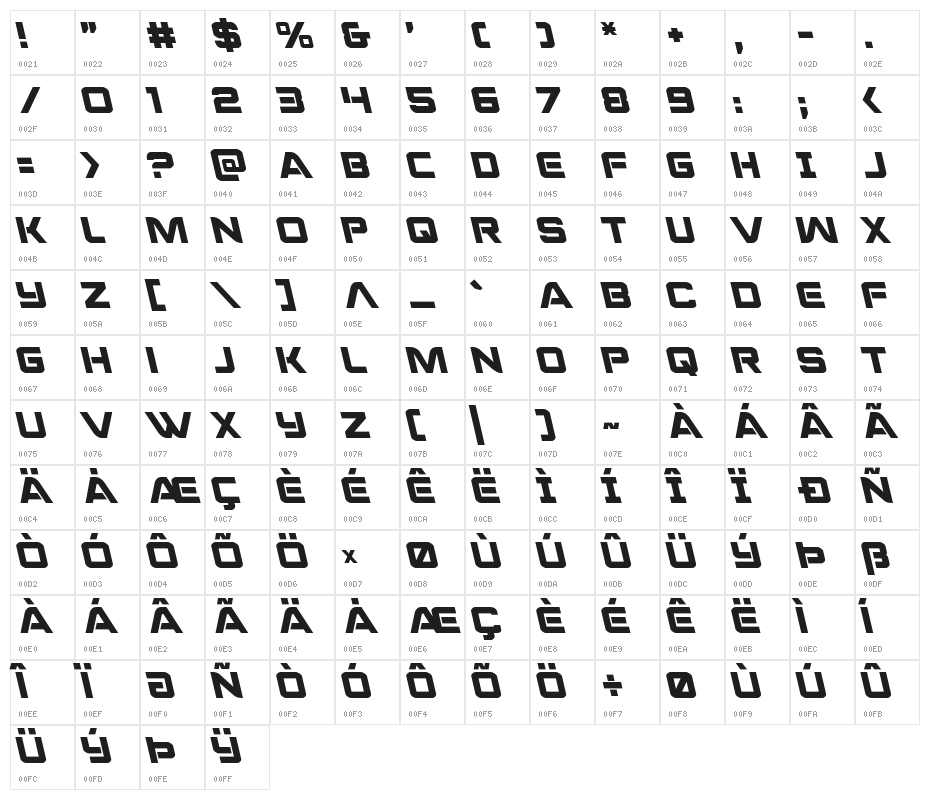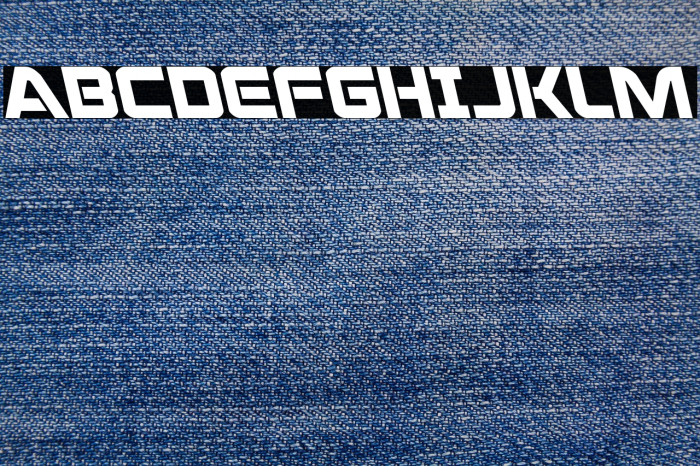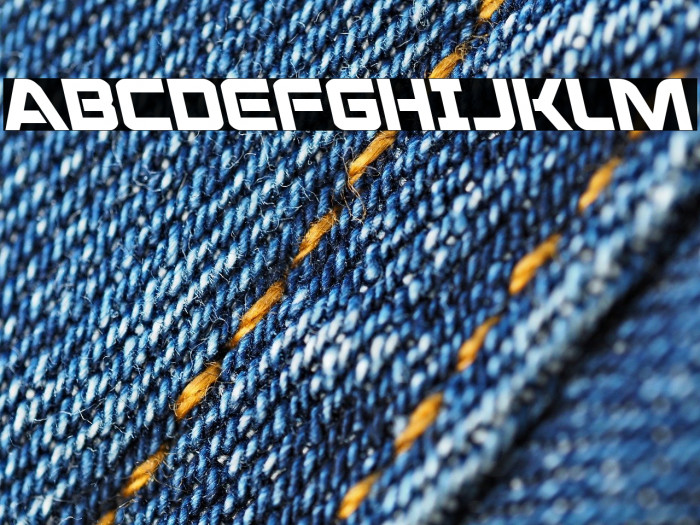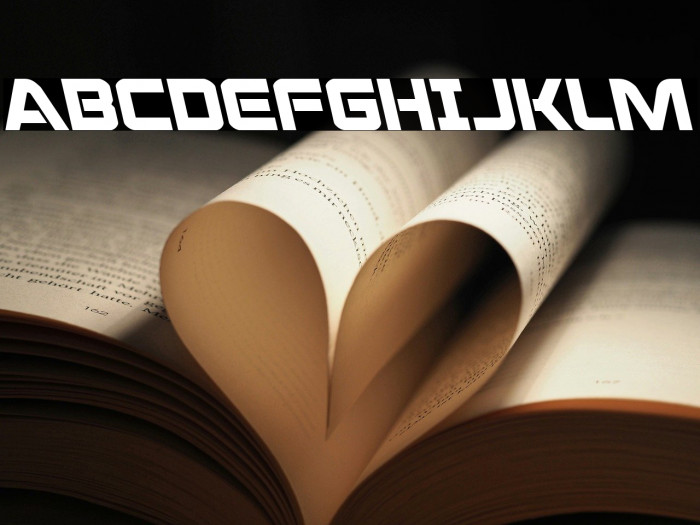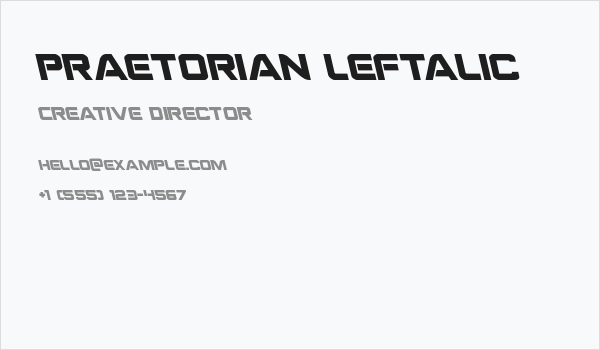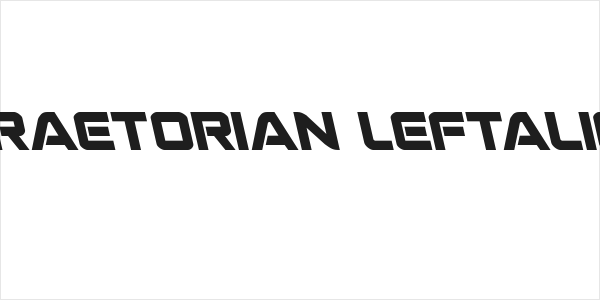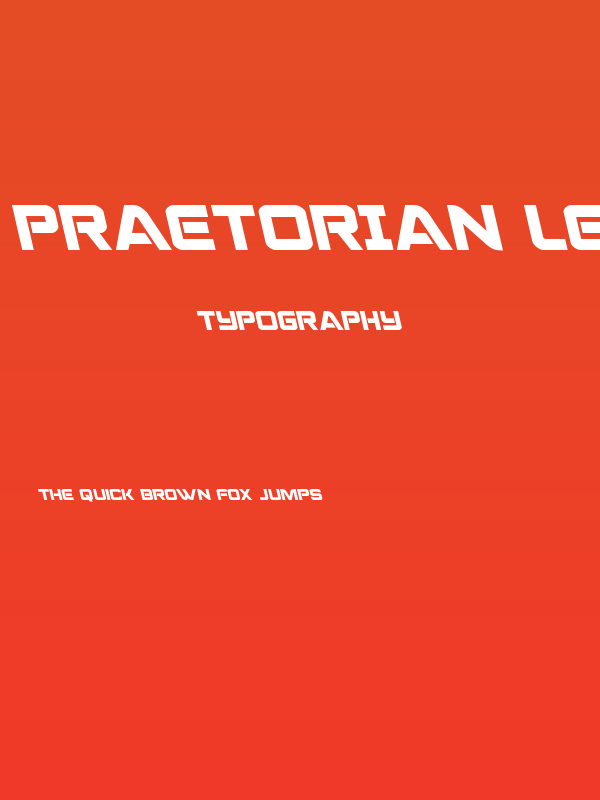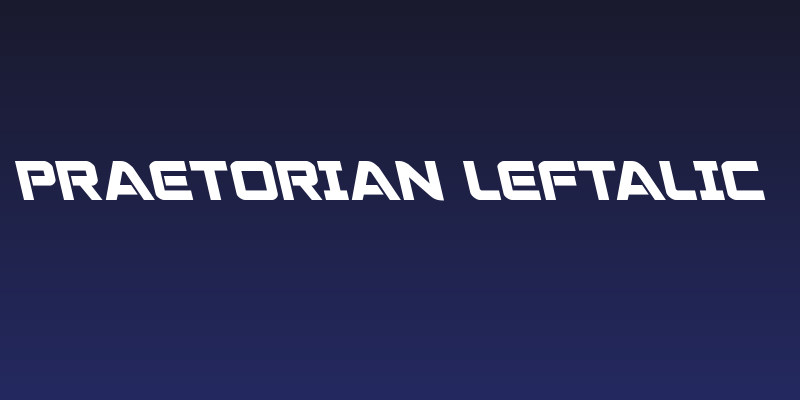
Praetorian Leftalic Font
Praetorian Leftalic Description
This font features a bold and angular design with a futuristic and dynamic appearance. The characters are slightly slanted, giving a sense of movement and speed. The strokes are thick and consistent, providing a strong visual impact. The geometric shapes and sharp edges contribute to its modern and edgy style. The font maintains uniformity in its structure, making it suitable for attention-grabbing headlines and titles. Its distinct style is ideal for projects that require a bold and assertive look.
| Proposed Projects | Ideal for sports branding, technology logos, video game titles, and sci-fi themed designs. |